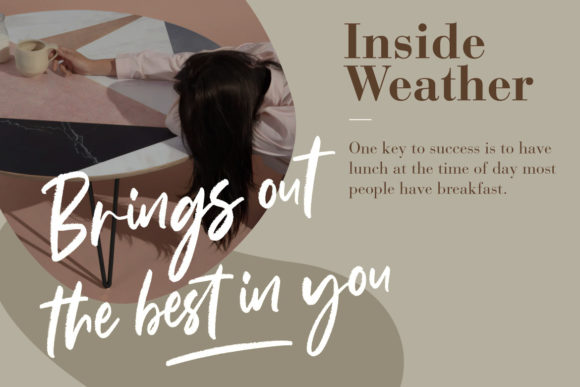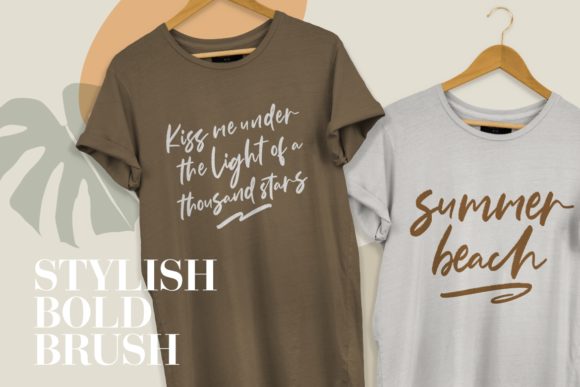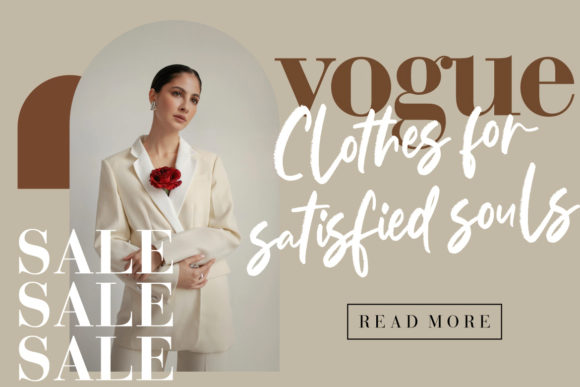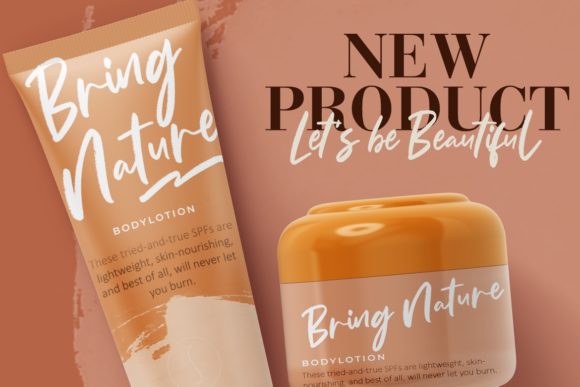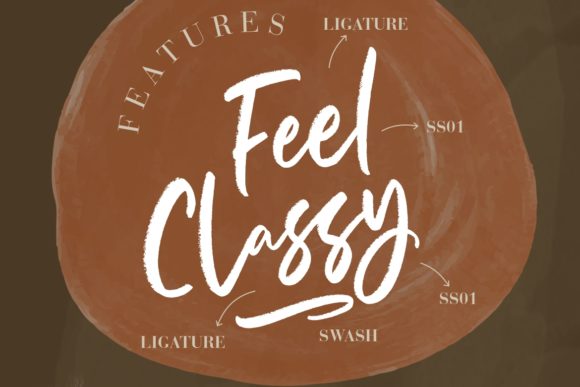
About Samanthy Font
Samanthy is a stylish and cursive brushed handwritten font, masterfully designed to become a true favorite. It maintains its classy calligraphic influences while feeling contemporary and fresh. This font is PUA encoded which means you can access all of the glyphs and swashes with ease!